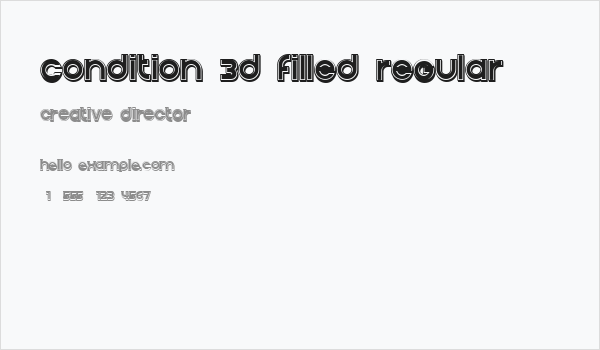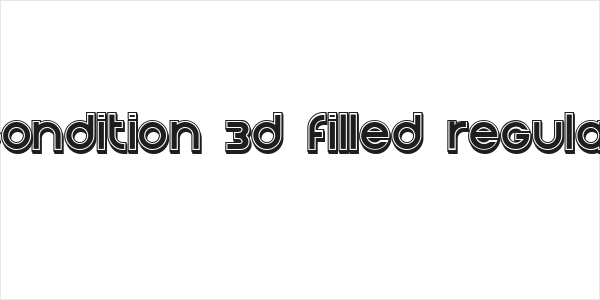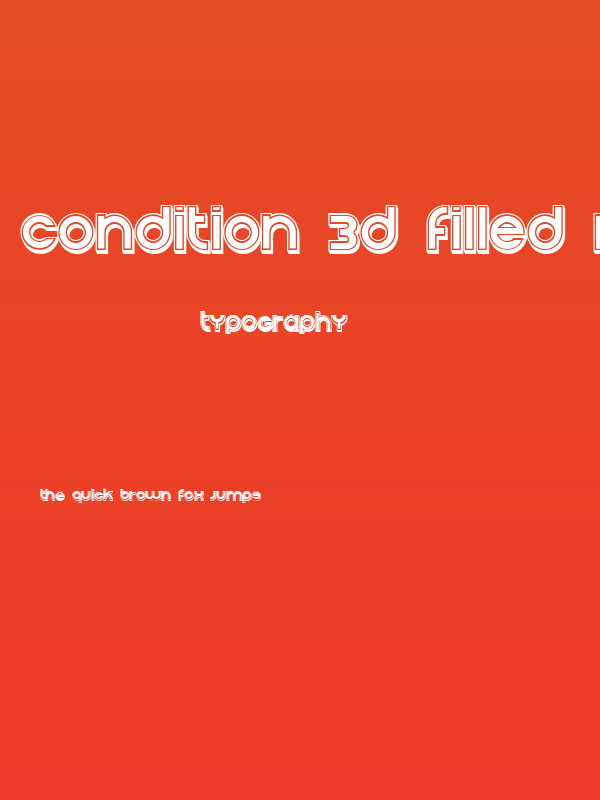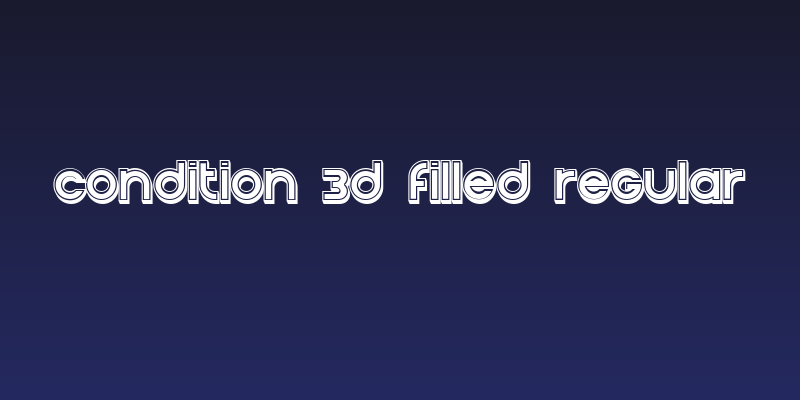
Condition 3d Filled Regular Font
Condition 3d Filled Regular Description
This font features a bold, three-dimensional appearance with a filled interior and a prominent outline. The characters are rounded and have a playful, modern aesthetic that stands out in any design. The uppercase and lowercase letters maintain a consistent style, with the numerals and special characters following suit. The font's structure is clean and geometric, making it suitable for eye-catching headlines or creative projects. Its unique 3D effect adds depth and interest, making it ideal for designs that require a touch of modern flair.
| Proposed Projects | Ideal for posters, logos, headlines, and any project needing a modern, eye-catching font. |